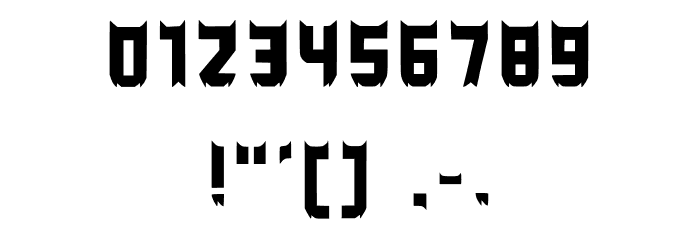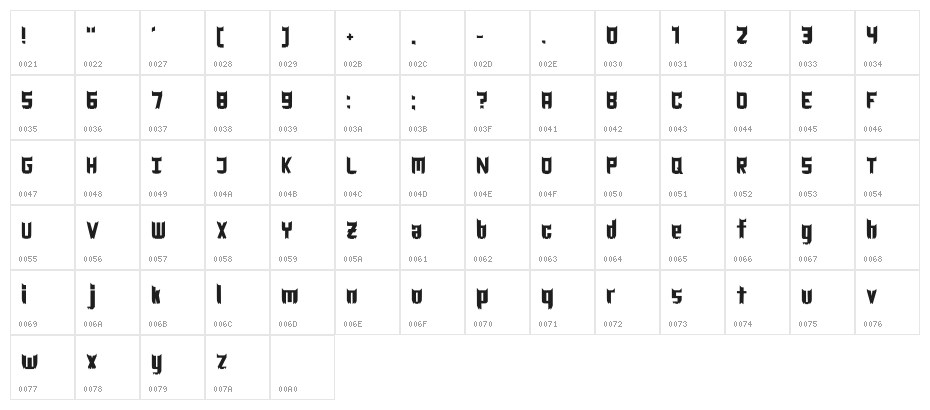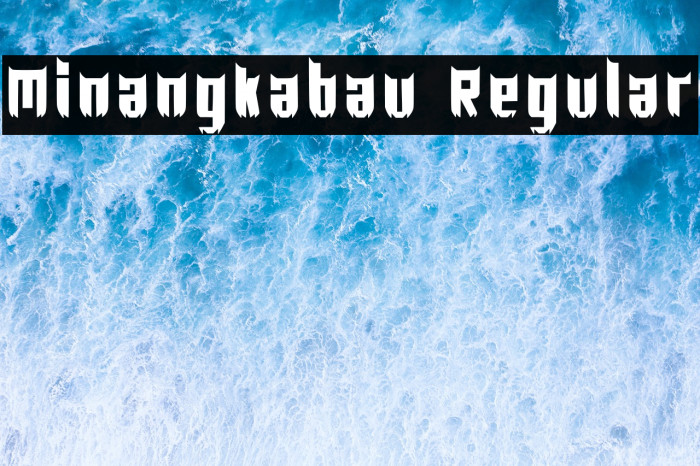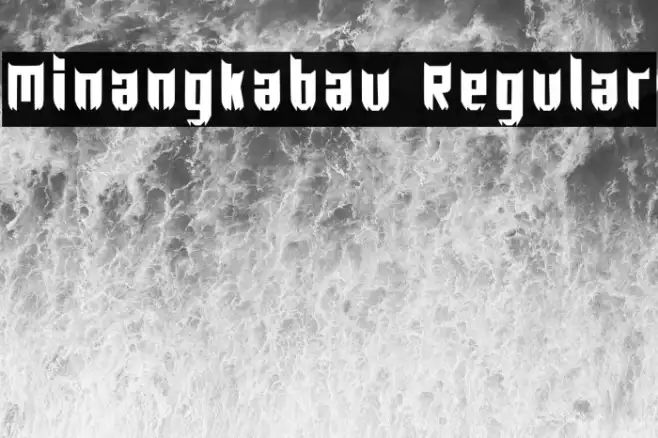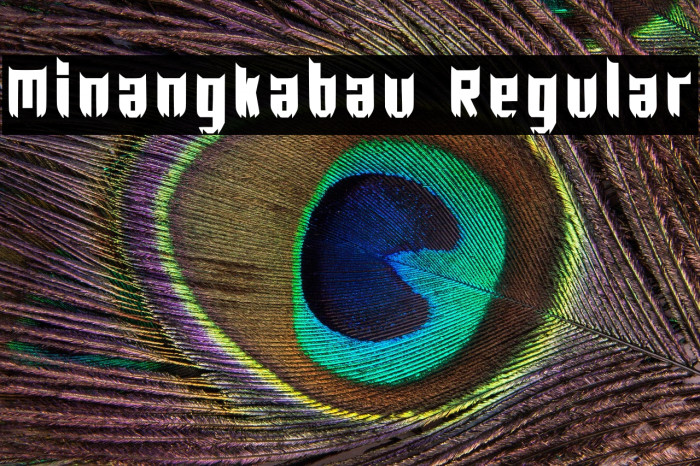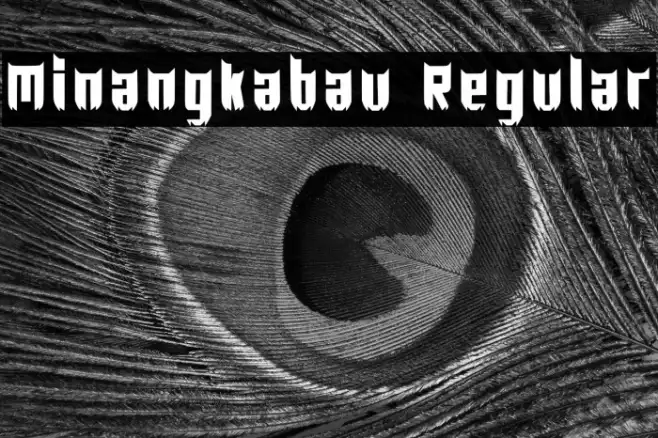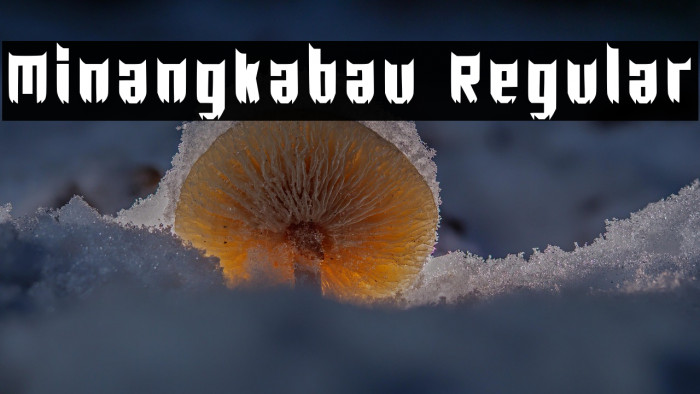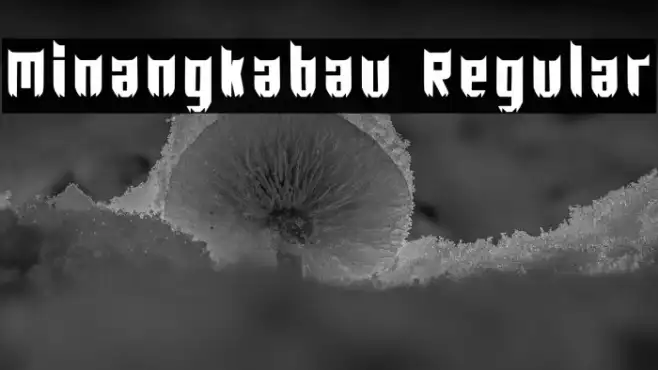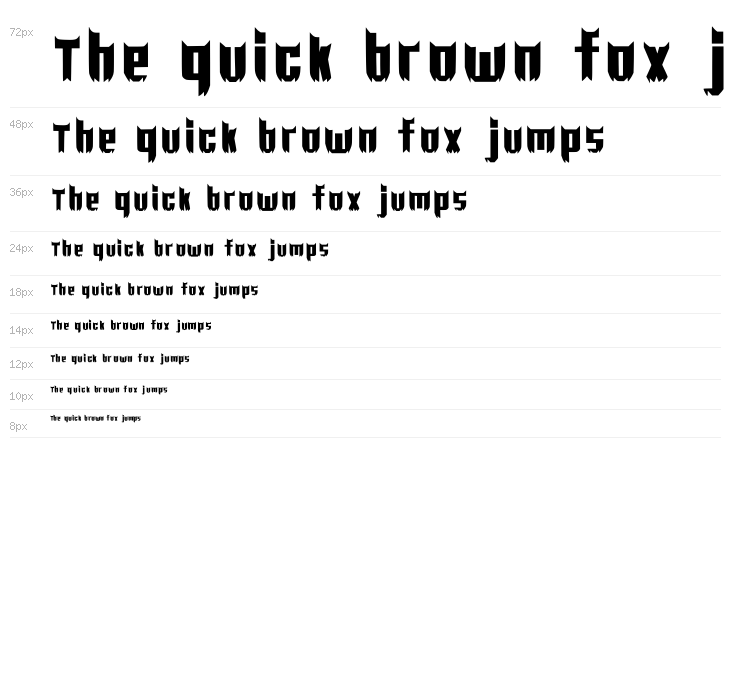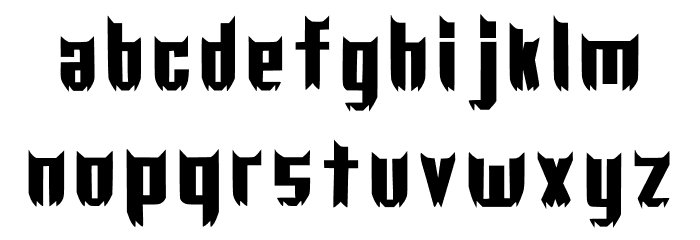
Minangkabau Regular Font
Minangkabau Regular Description
This font features a bold and striking design with sharp, angular edges that give it a unique and aggressive appearance. The characters are heavily stylized, with a distinct geometric influence that makes each letter stand out. The uppercase and lowercase letters maintain a consistent style, with the uppercase being slightly more pronounced. Numbers and special characters follow the same design principles, ensuring a cohesive look across all text. The font's boldness and distinctiveness make it ideal for projects that require a strong visual impact.